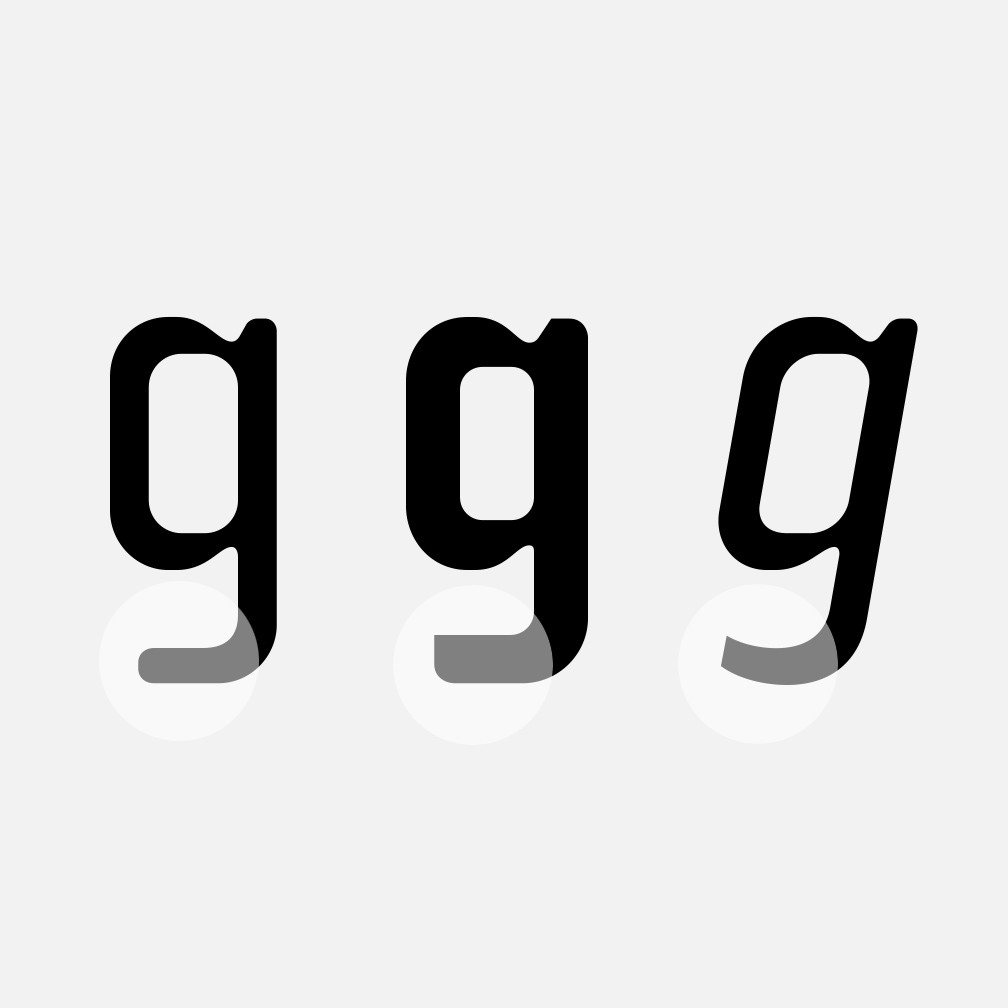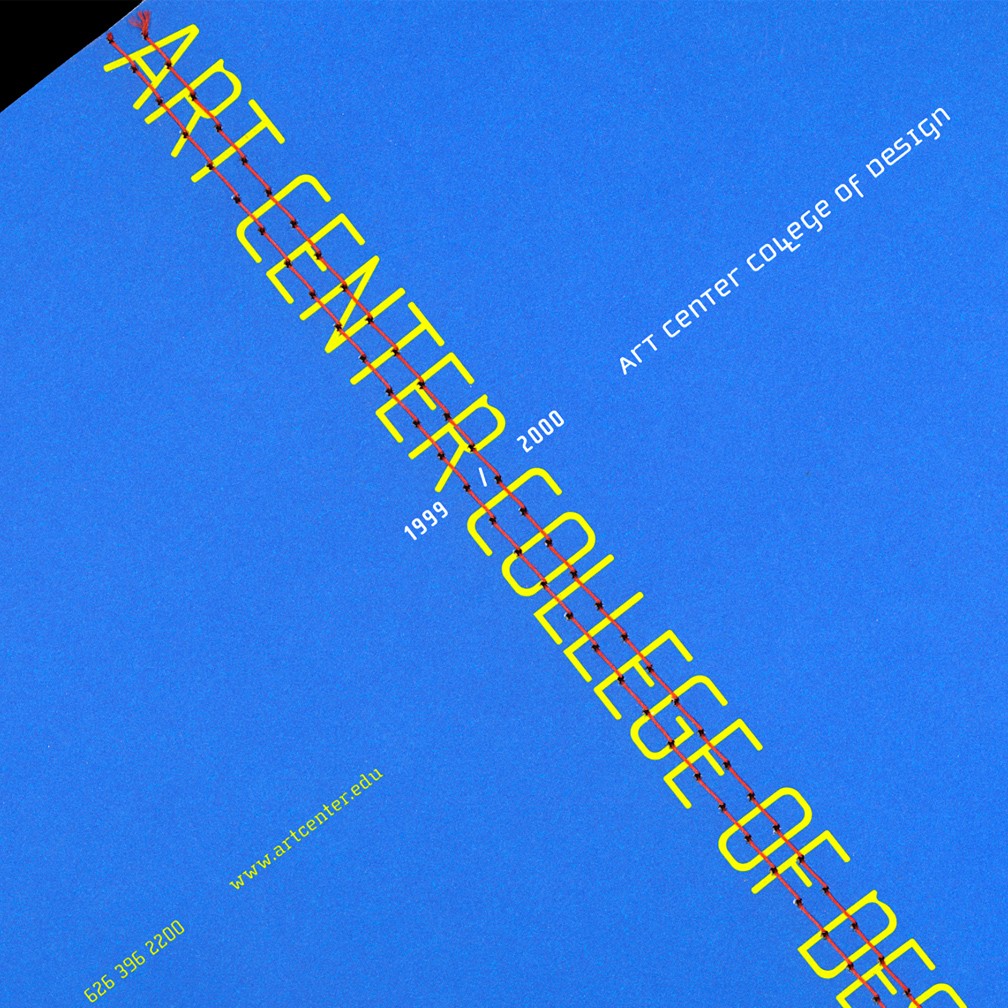
Cholla Sans
Sibylle Hagmann
The Cholla typeface family was designed by Sibylle Hagmann in 1998-99 and named after a species of cactus she encountered in the Mojave Desert. Cholla was originally developed for the Art Center College of Design in Pasadena, California. There, art director Denise Gonzales Crisp and associate designer, Carla Figueroa, collaborated with Hagmann to create a series of fonts that would offer a great deal of variation. The variety was needed to echo the school’s nine different departments, yet together the fonts had to exude a unified feel. It was first used in the radically designed 1999/2000 Art Center catalog which won an honorable mention in I.D. magazine and was also featured in Eye No. 31. Originally Hagmann set out to design a typeface that, as she recalls, “I could feel comfortable making, first of all, and one that would serve a purpose and had a clear idea behind it, and something that I would want to use myself.” Stylistically Hagmann set out to create “12 cuts with slightly different person- alities, with different ideas applied. For example the Bold weight isn’t simply the Regular with weight gain, but has bold letterforms with their own peculiar details. What all weights share and what is the necessary unifying detail is the tapered curve — marked out, for example, in the lowercase a’s right top and bottom of the bowl.”